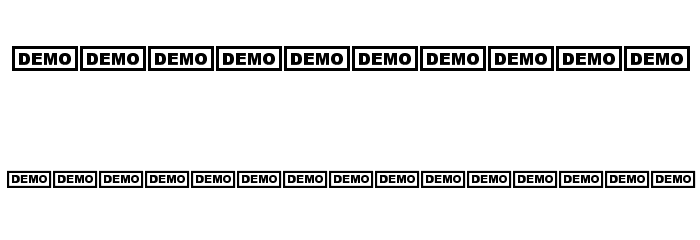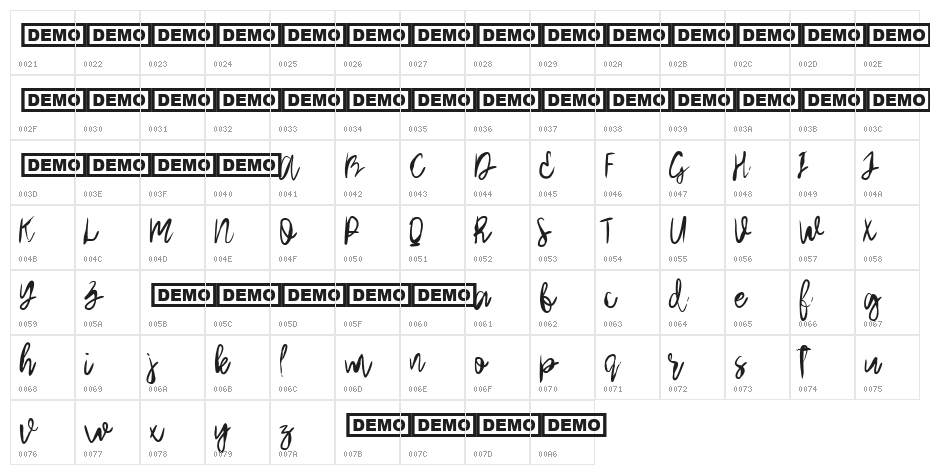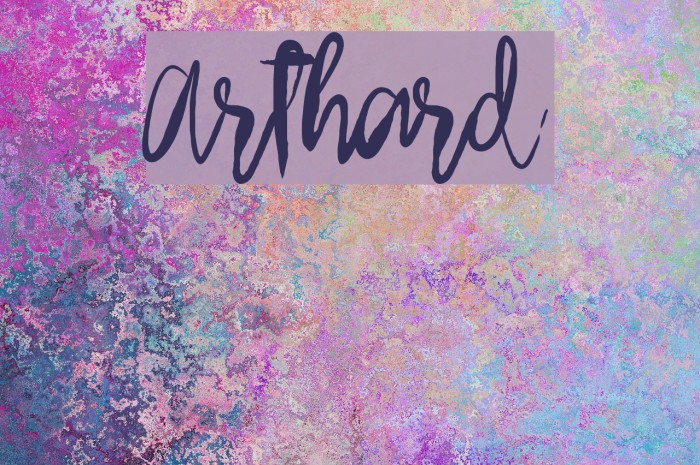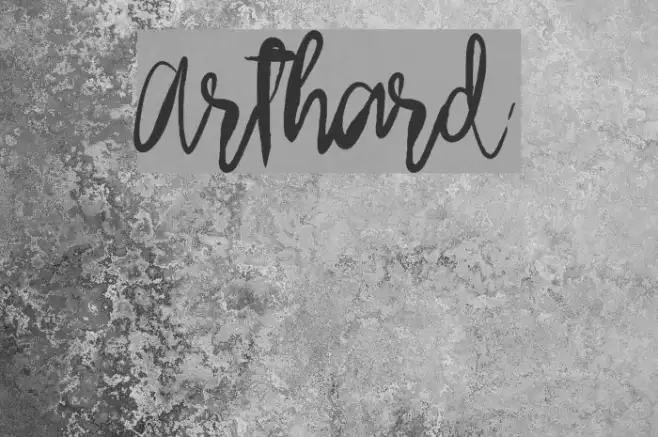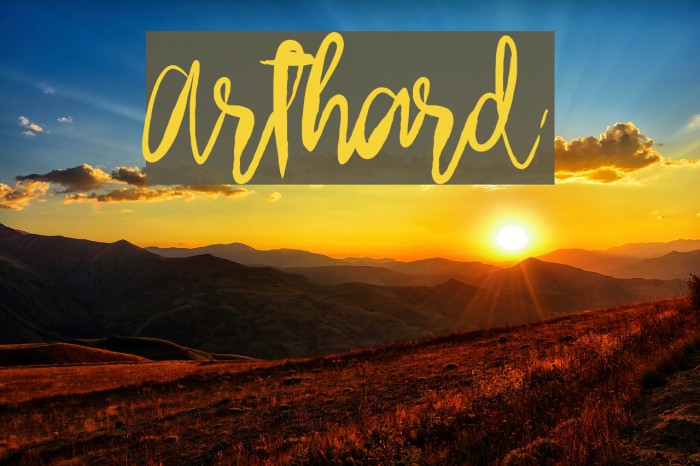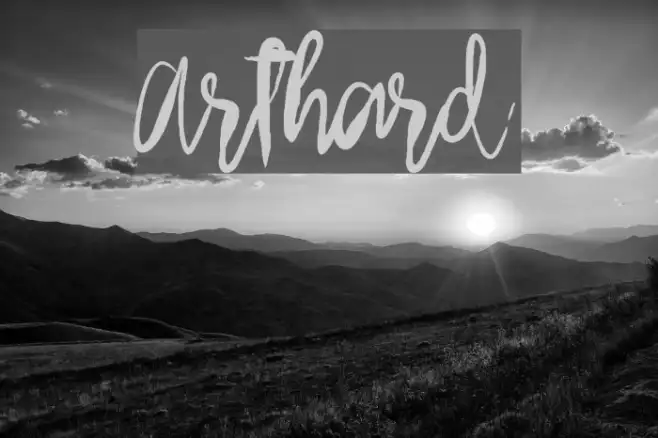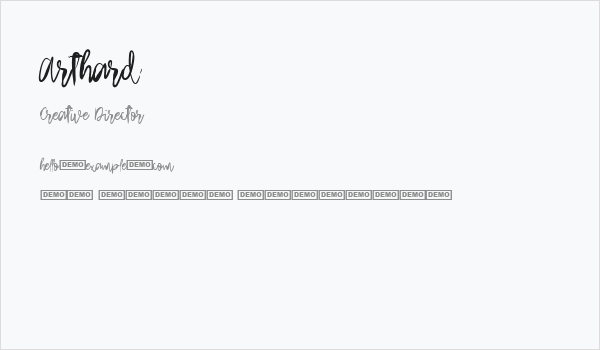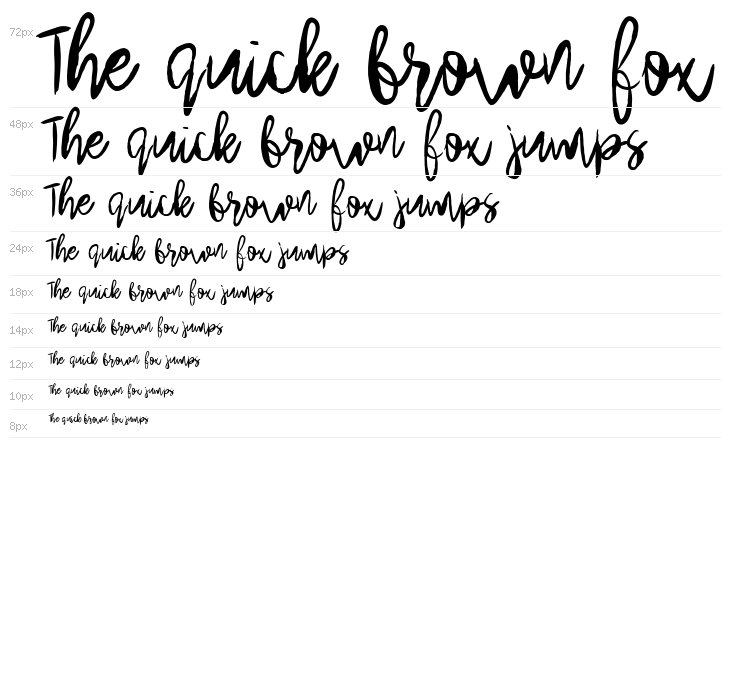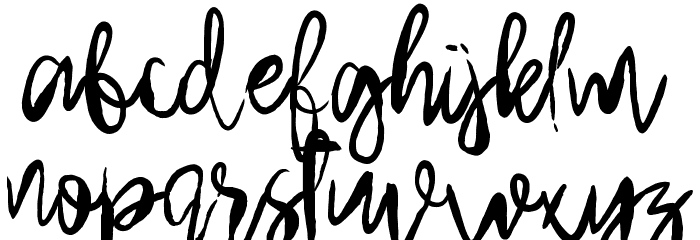
Arthard Font
Arthard Description
This font features a dynamic and expressive handwritten style, characterized by its bold and fluid strokes. The letters are interconnected with a natural flow, giving it a lively and spontaneous appearance. The uppercase and lowercase letters maintain a consistent style, with a slight slant that adds to the casual and informal feel. The strokes vary in thickness, creating a medium contrast that enhances its legibility while maintaining an artistic flair. The font's playful and energetic nature makes it ideal for creative projects that require a personal touch.
| Proposed Projects | Ideal for greeting cards, invitations, personal branding, and creative posters. |